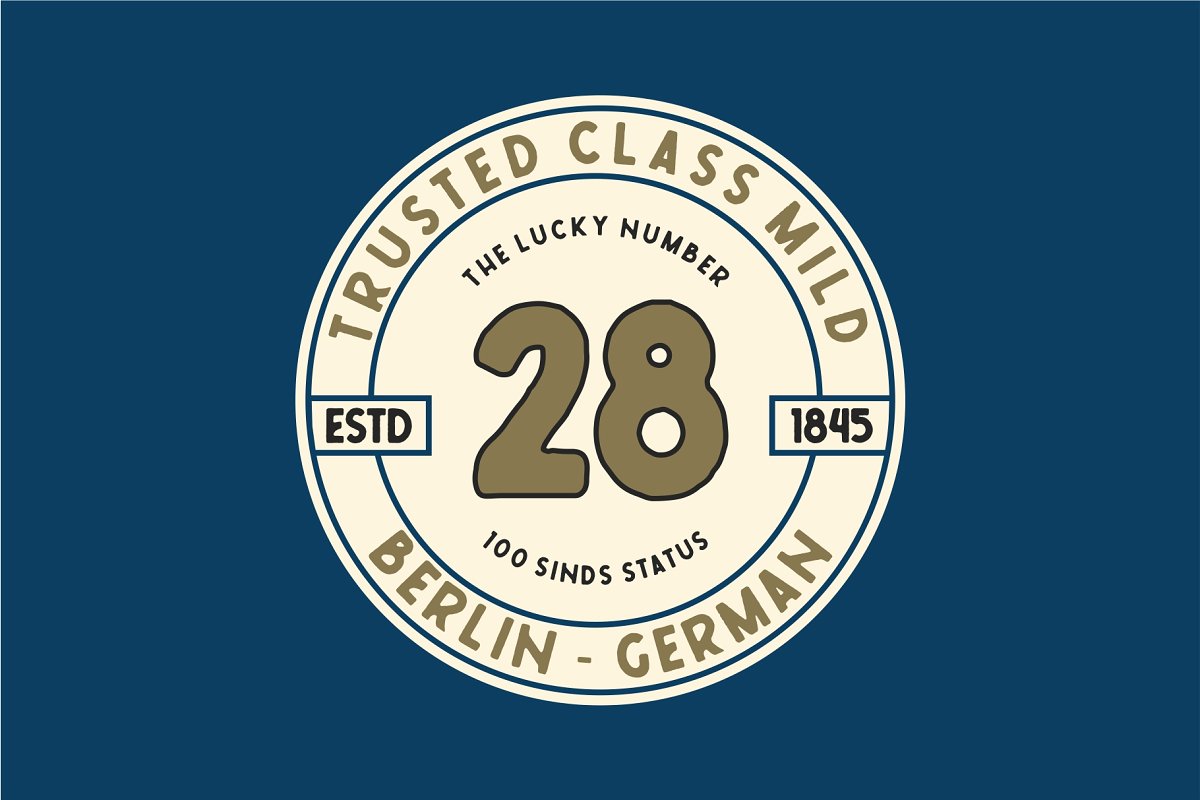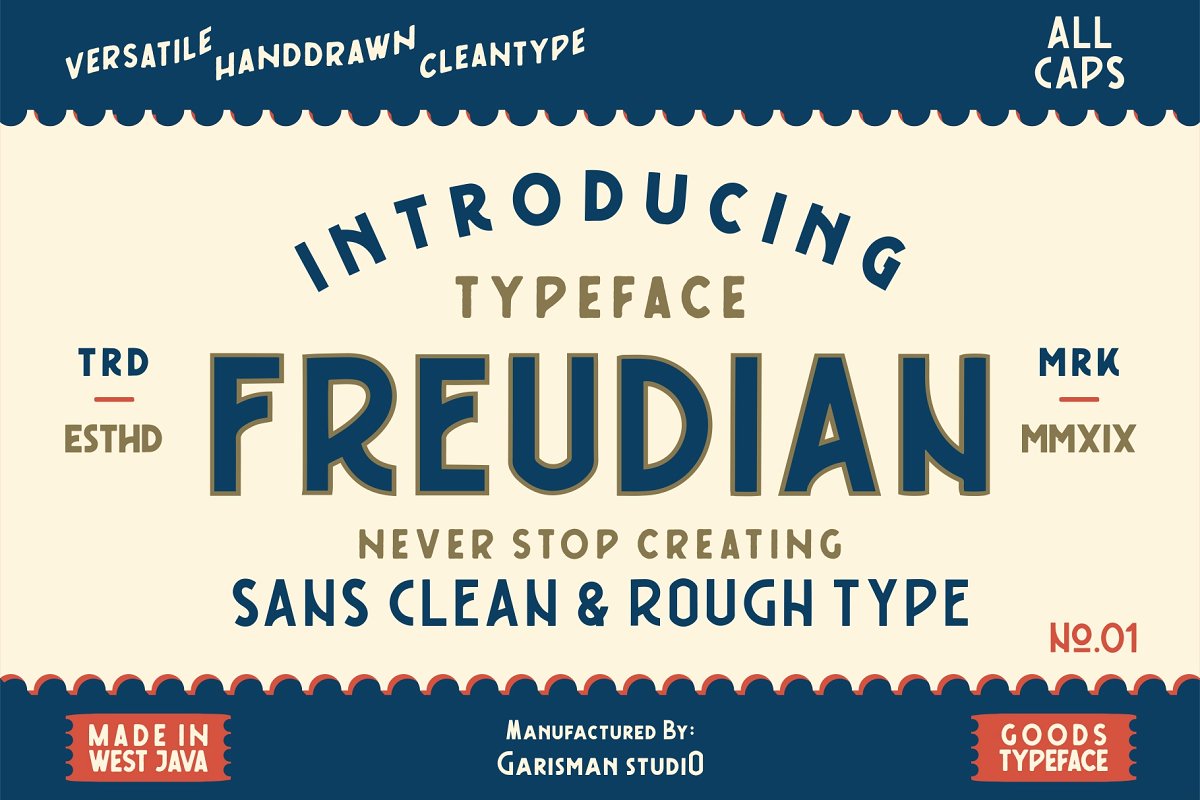
Freudian Typeface
This is a playful and elegant sans serif. Primarily it is characterized by a modern look with straight shapes, but on closer view, you will notice its subtle connection to vintage type design from old years. Introducing Freudian Typeface. This font gives a feel of vintage, classic, old, handmade looked like. Already PUA Encoded and I think this font is perfect for people looking for vintage aesthetic or handdrawn logo. Suitable for any graphic designs such as branding materials, t-shirt, print, business cards, logo, poster, t-shirt, photography, quotes .etc.